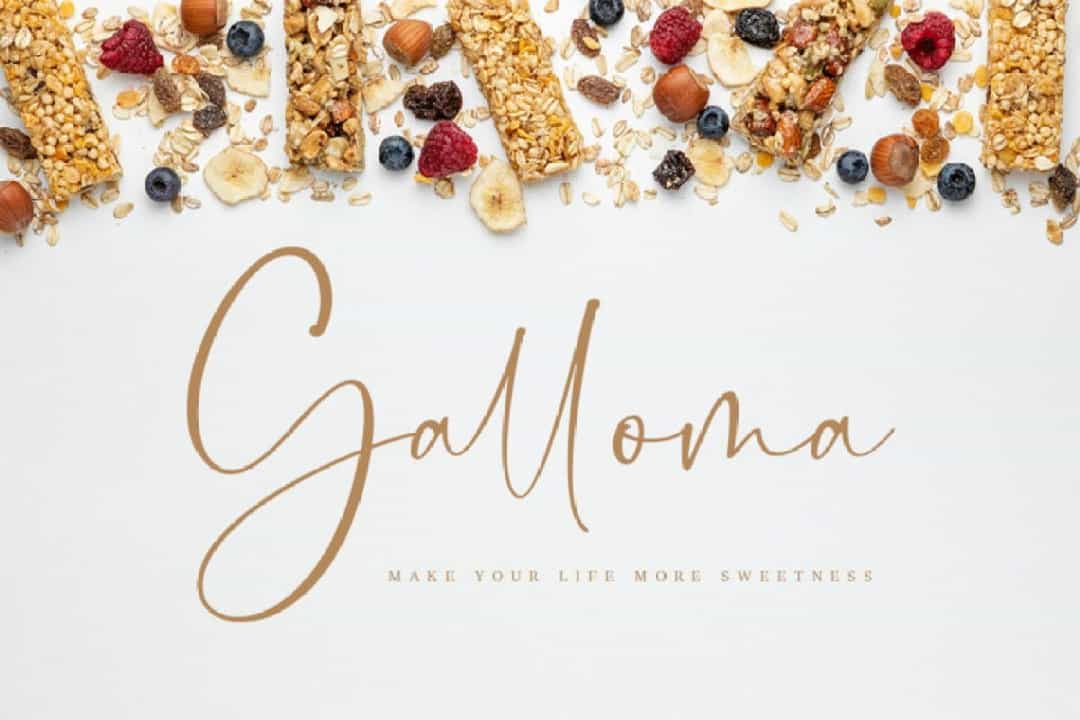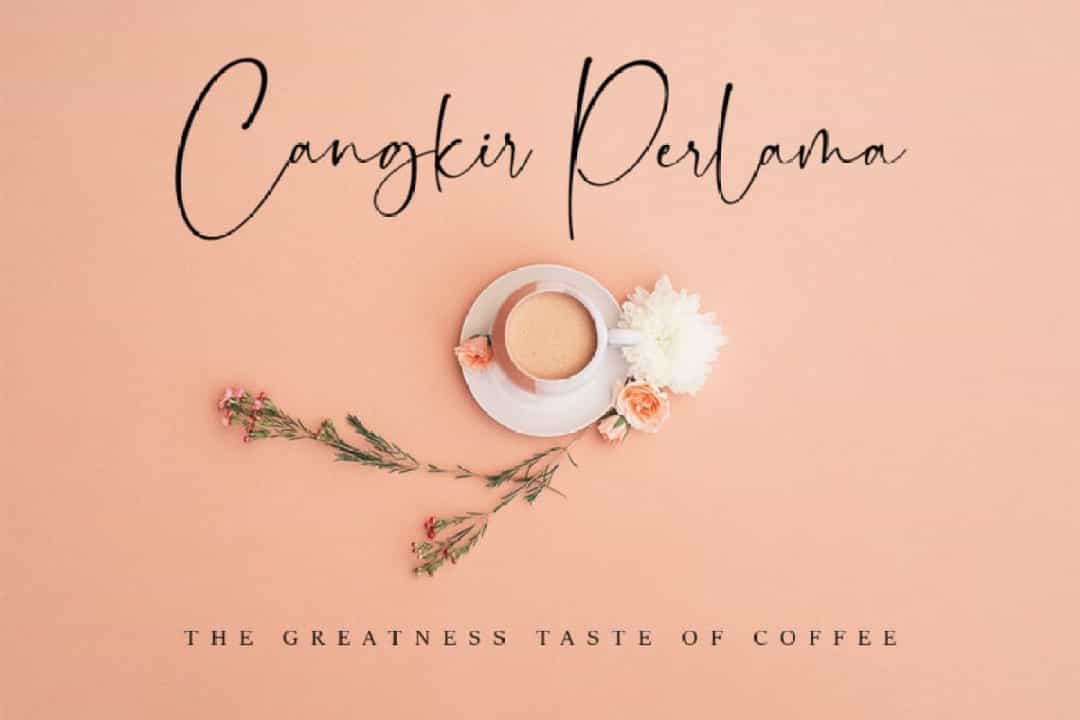
Dollamin is an original handwritten font, every curve it contains makes the text look graceful. It will be a real pleasure to incorporate the authentic letters into your artwork as Dollamin! It includes all the basic alphabet, numbers, symbols, and it also has the regular ligatures and multi language support.